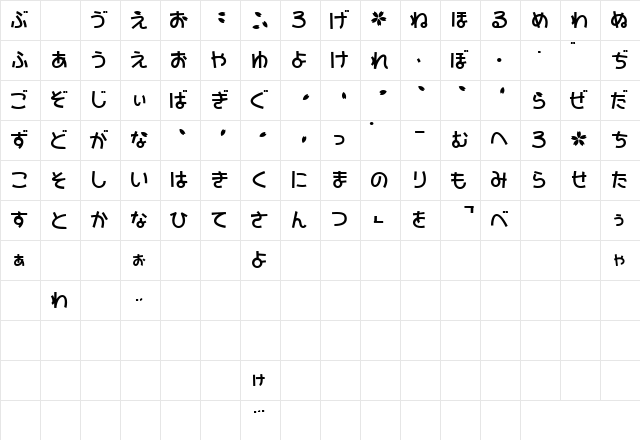
SAKURA hira
Design Context for SAKURA Typeface
SAKURA is a composed and adaptable typeface that performs quietly and consistently across a wide range of design contexts.